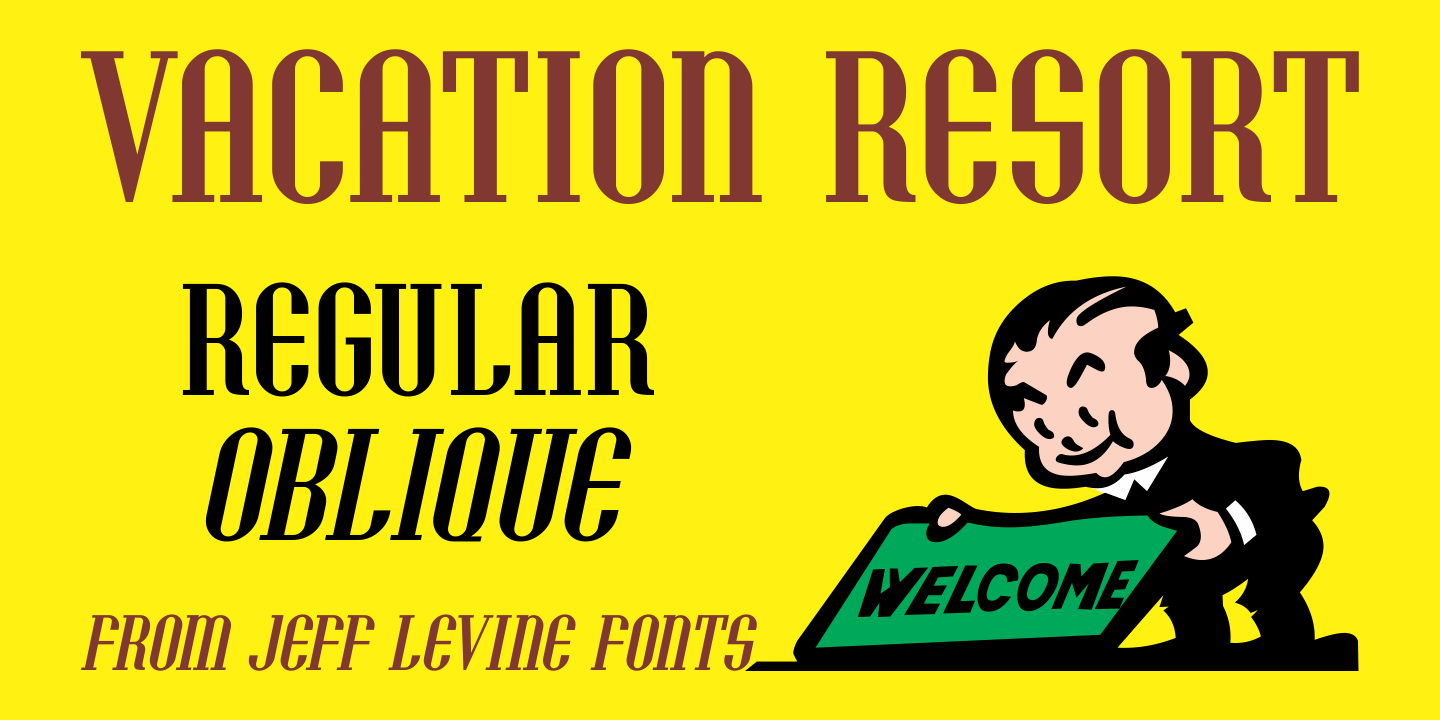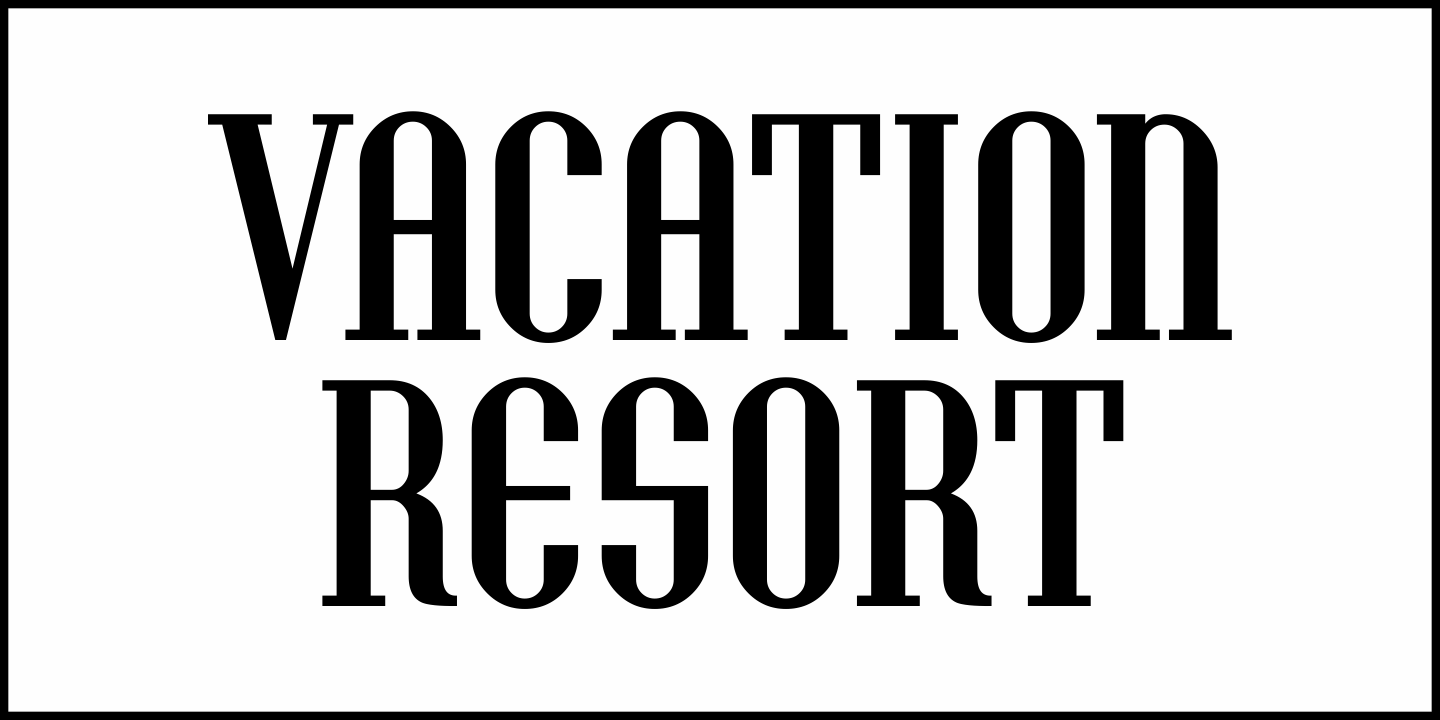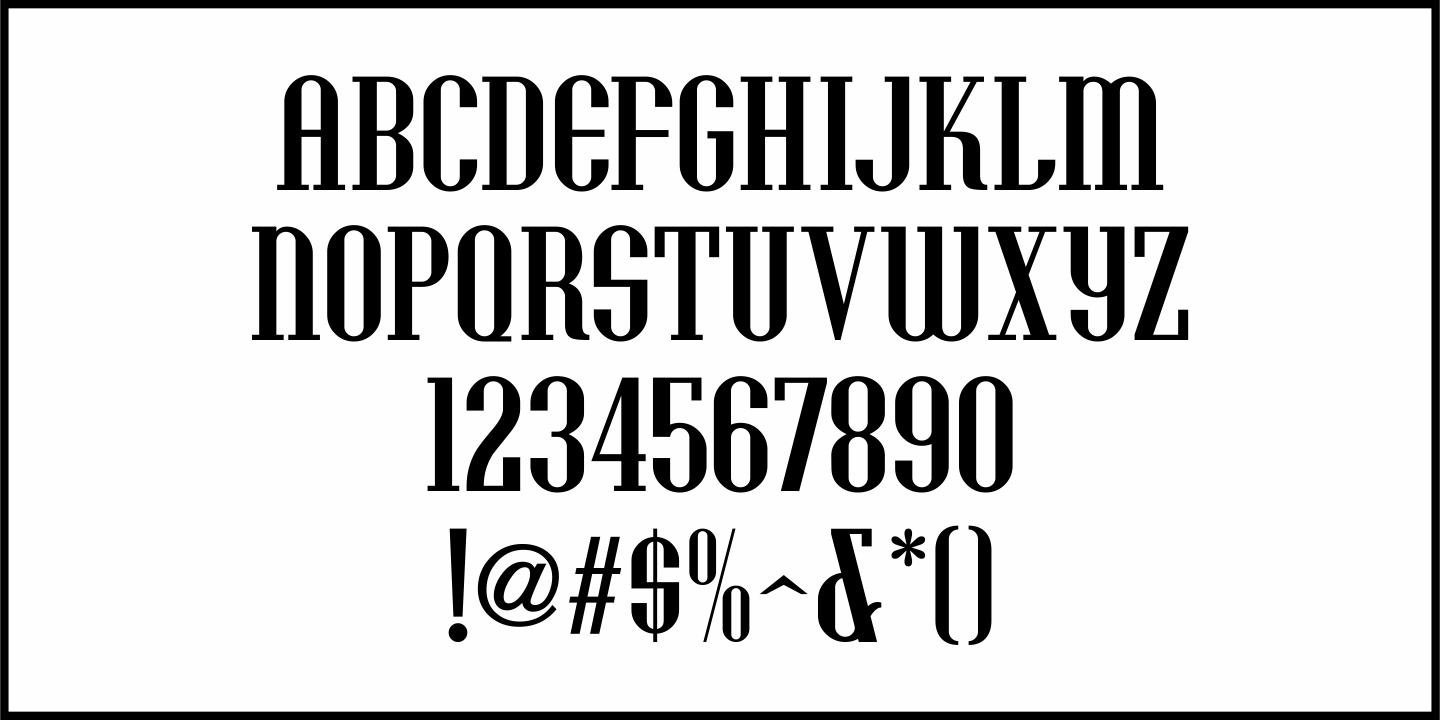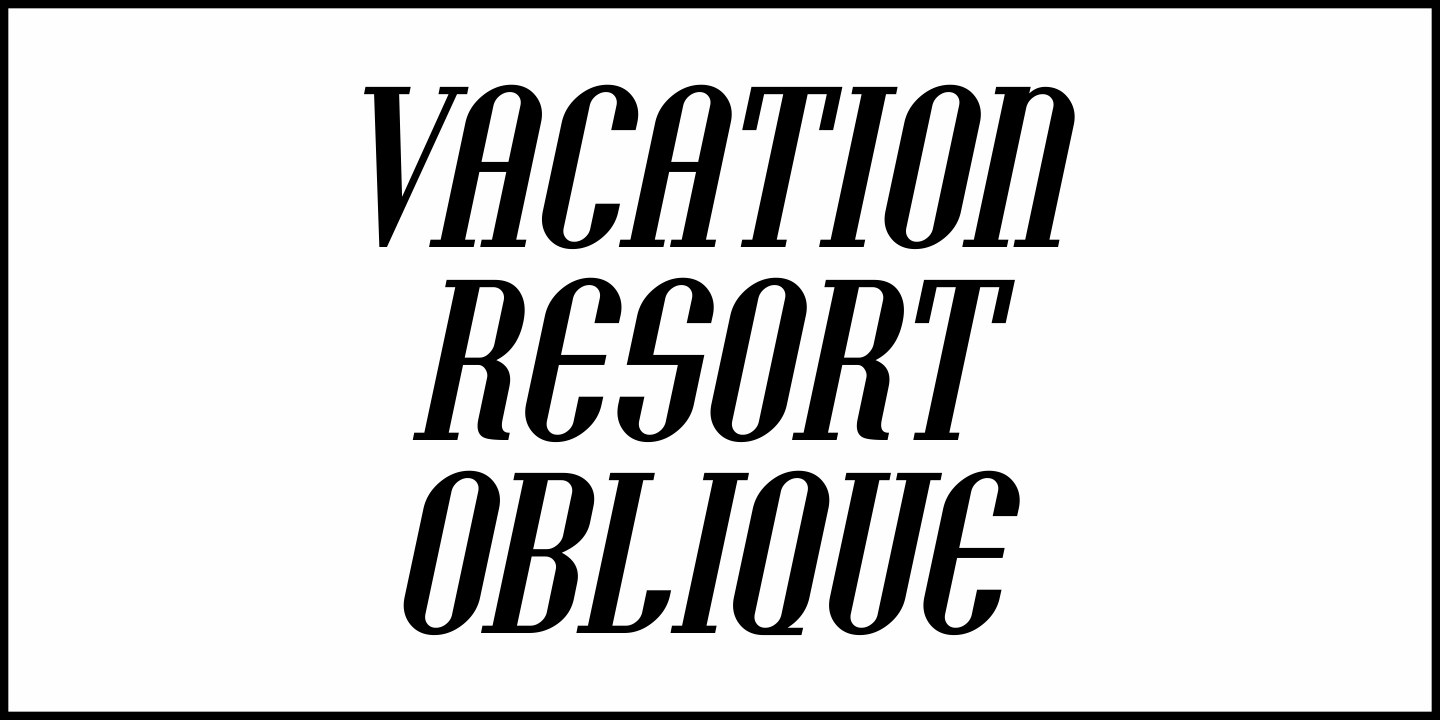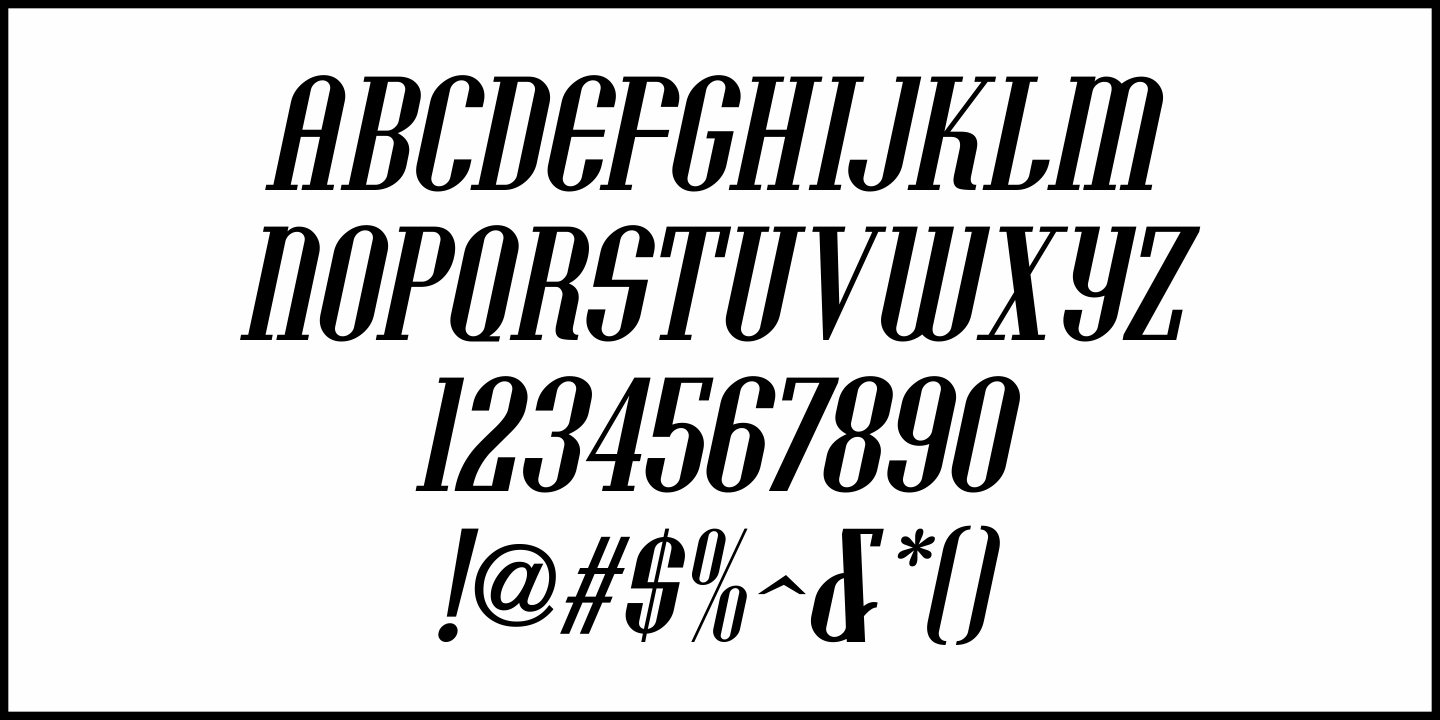
Vacation Resort
Buy NowThe hand lettered cast and production credits for the 1942 music comedy “Holiday Inn” (starring Bing Crosby and Fred Astaire) inspired Vacation Resort JNL, which is available in both regular and oblique versions.